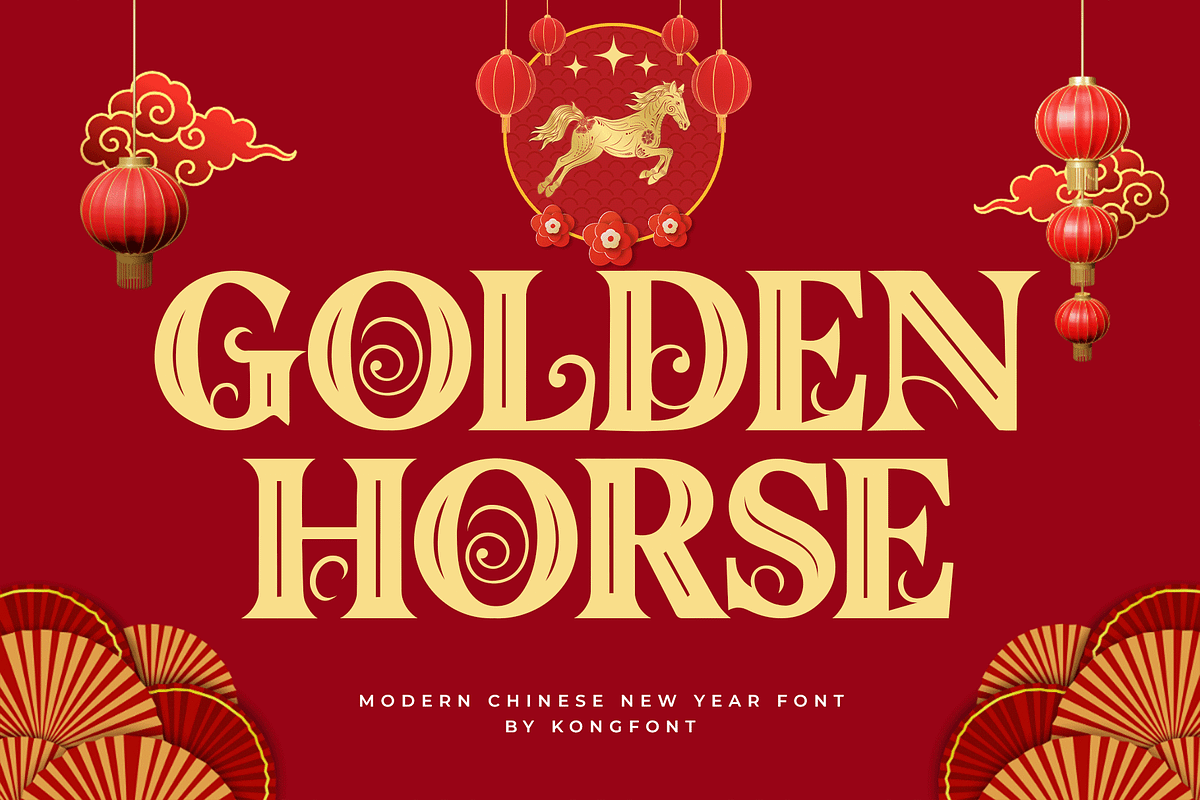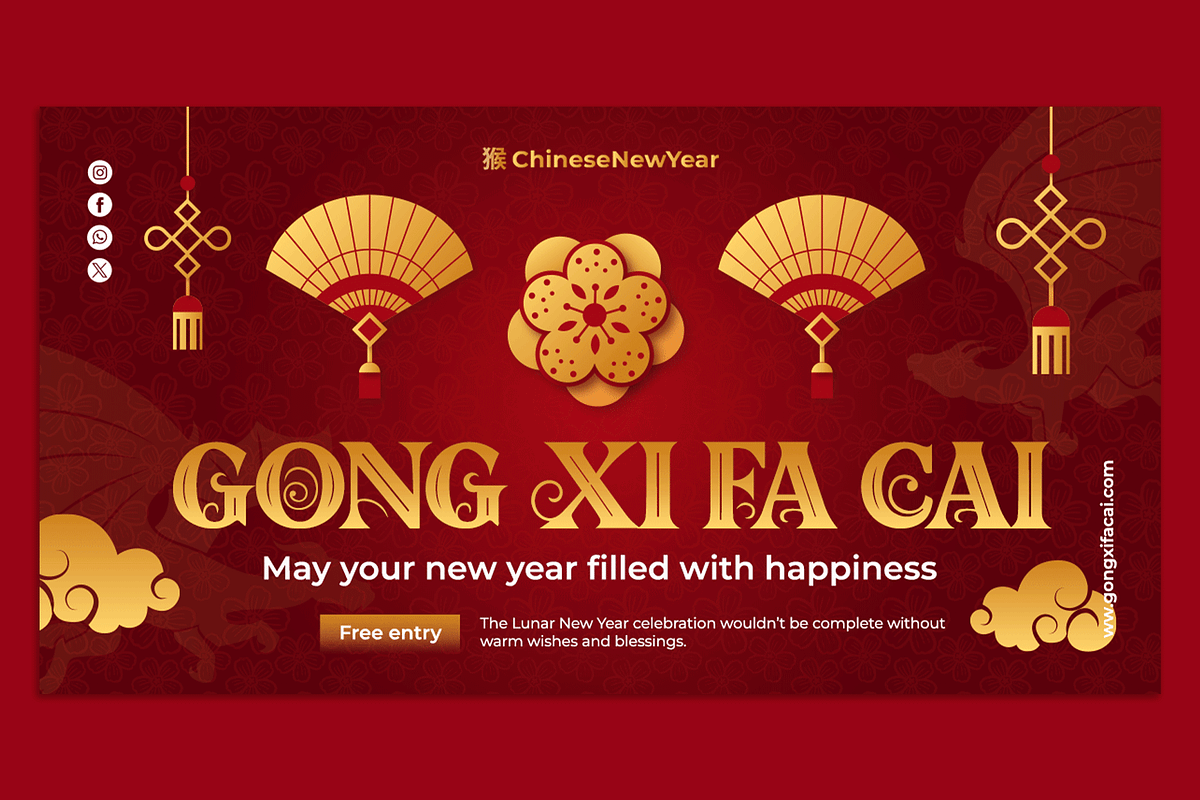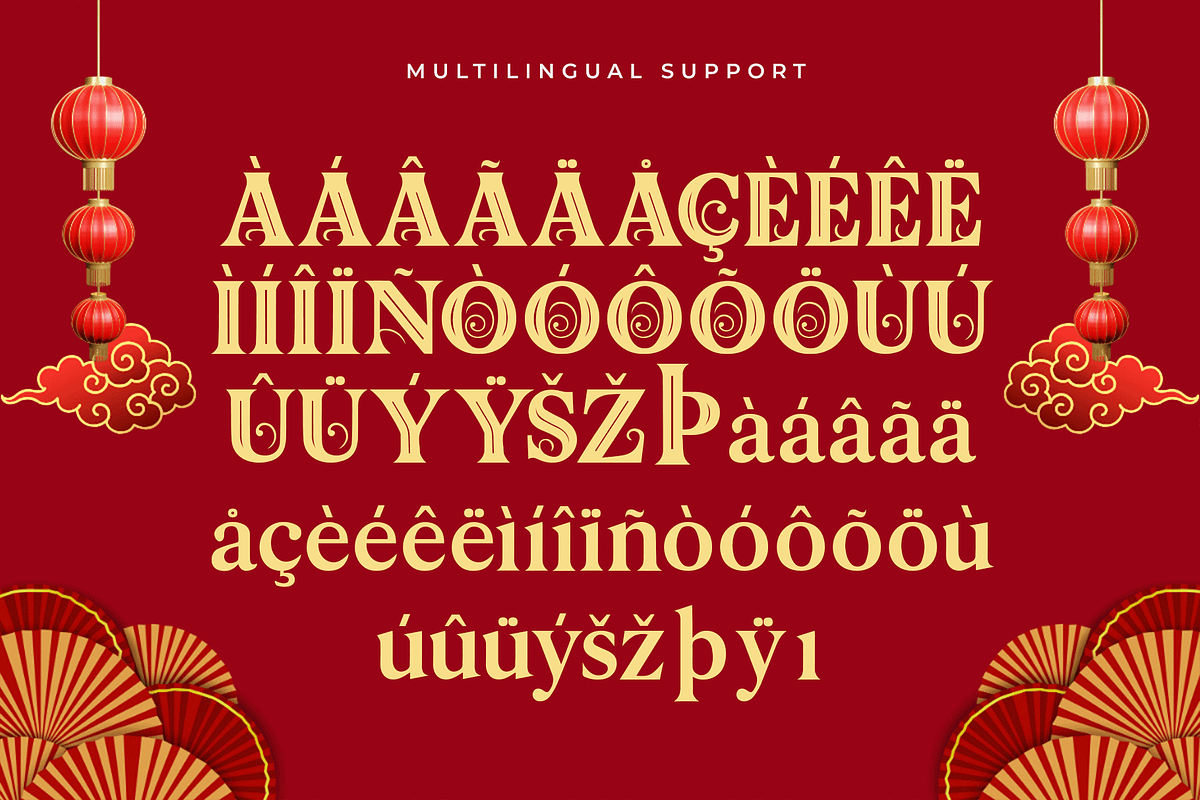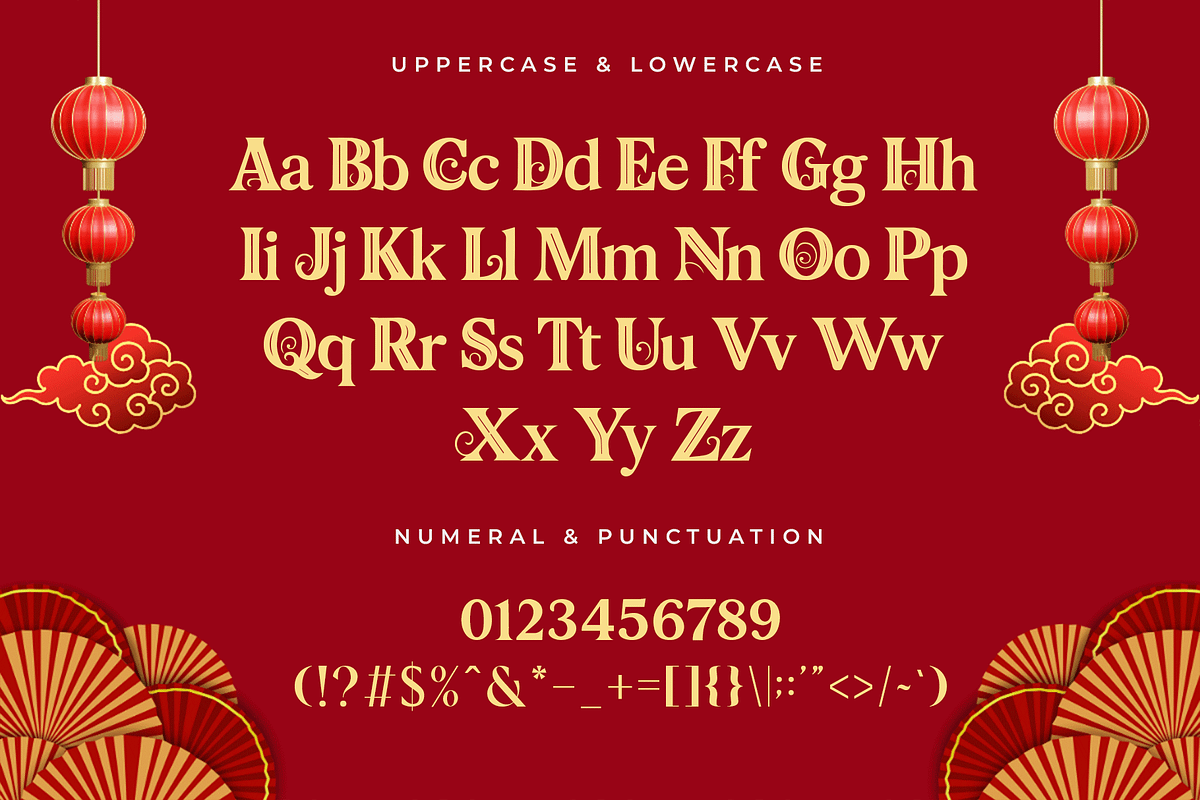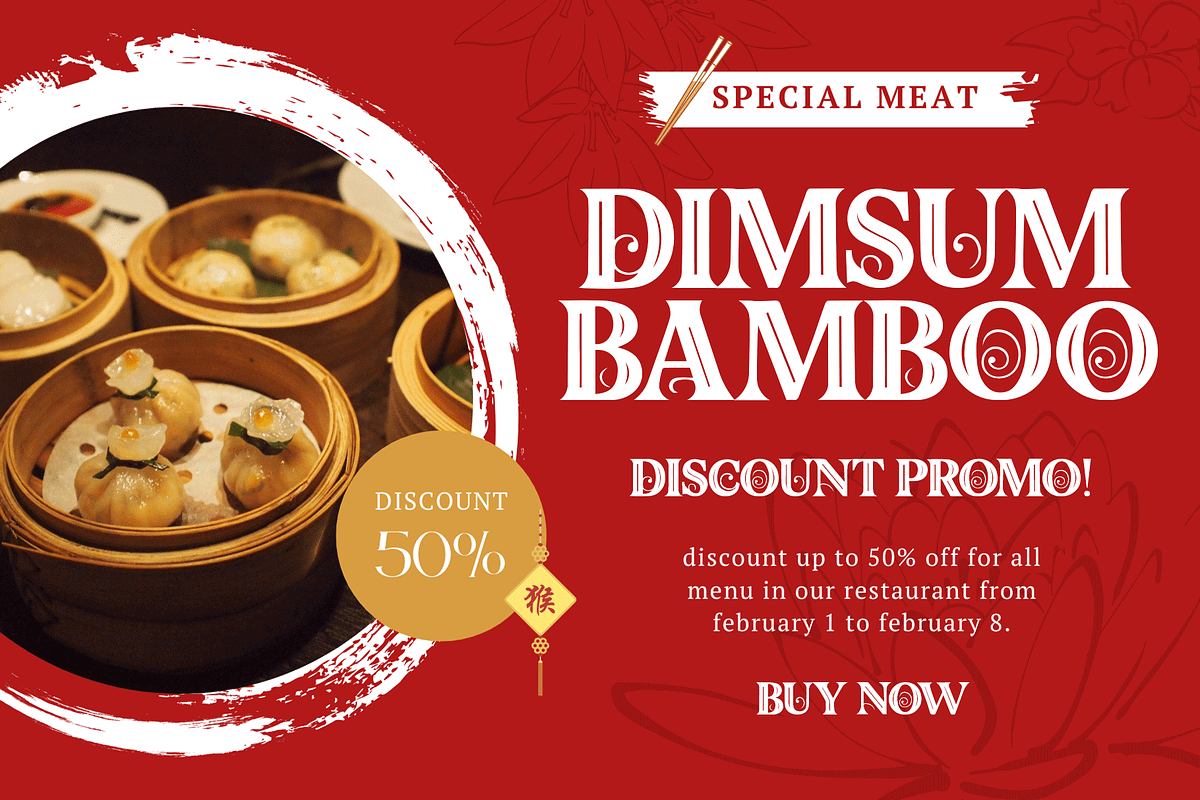
Golden Horse – Modern ChineseNewYear
Golden Horse – Modern Chinese New Year Font
Introducing Golden Horse, a modern Chinese New Year font designed to bring festive joy and cultural richness into your creative projects. Inspired by the spirit of Lunar New Year celebrations, this typeface combines bold strokes with decorative flair, evoking themes of prosperity, fortune, and celebration.
Perfect for greeting cards, event posters, packaging, branding, and festive advertisements, Golden Horse captures the essence of tradition while presenting it in a modern and stylish way. Its distinctive characters make your designs stand out with cultural depth and elegance, ideal for both print and digital applications.
Featuring uppercase, lowercase, numerals, punctuation, and multilingual support, Golden Horse ensures versatility for global creatives looking to add a festive touch to their work.